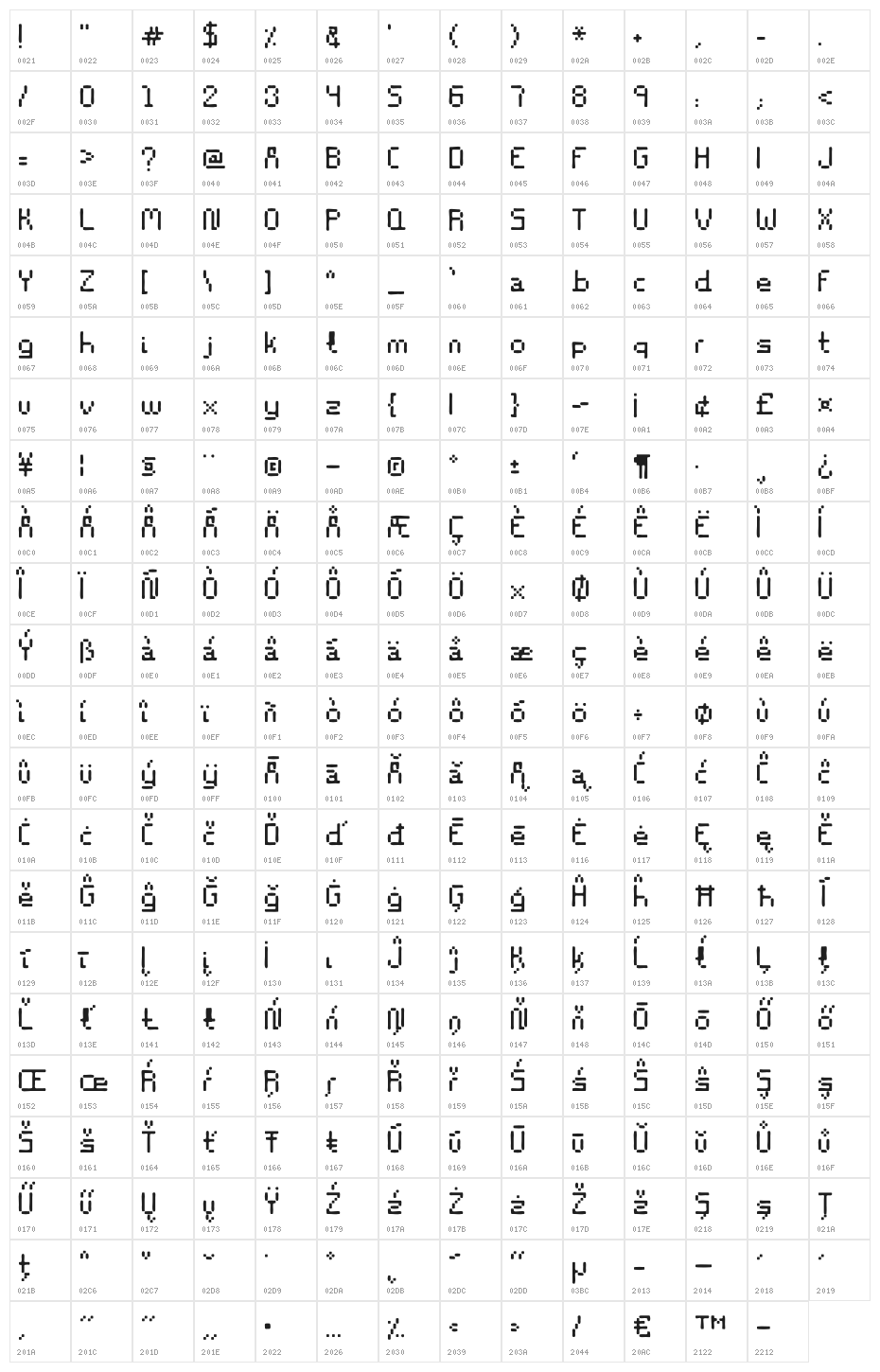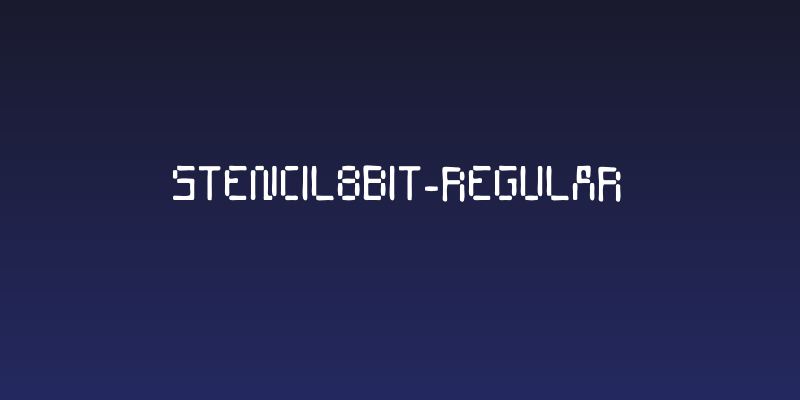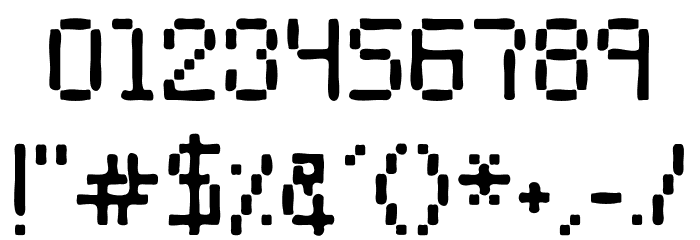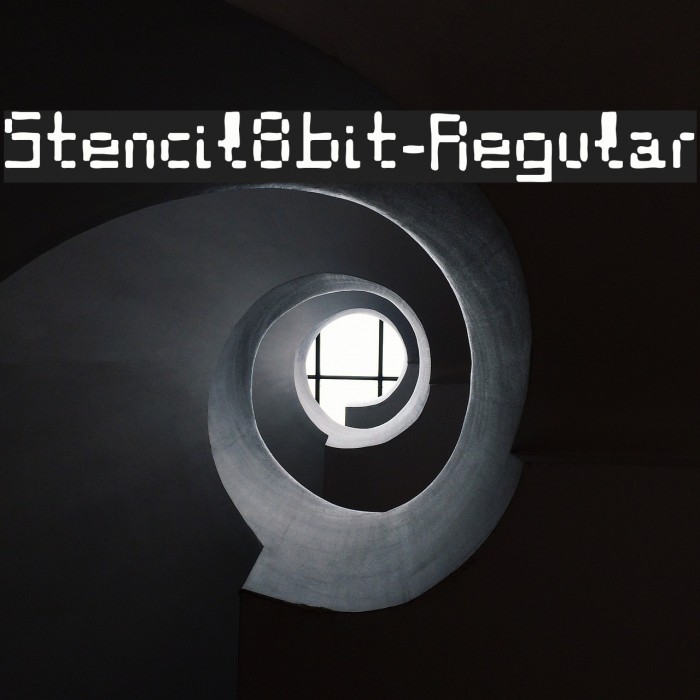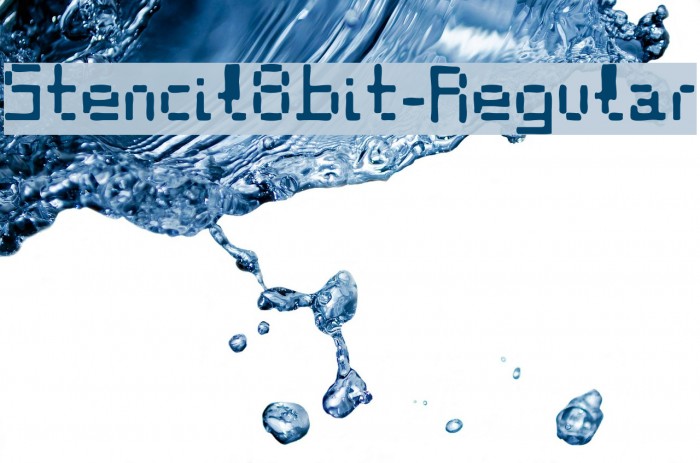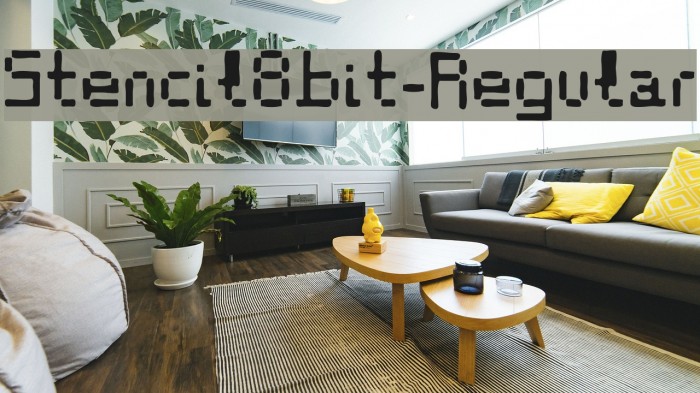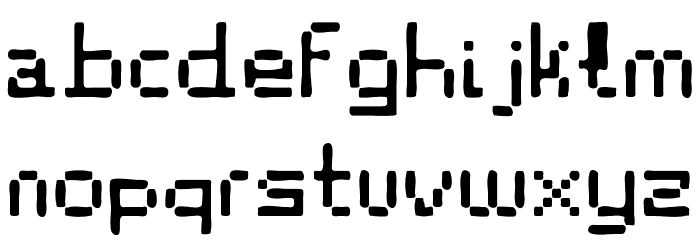
Stencil8bit-Regular Font
✎ Pixel
| Catégories | Pixel |
| Style général | Modern, Retro |
| Cas d'utilisation | Headlines, Logos, Digital Art |
| Projets proposés | Ideal for video game graphics, tech-themed posters, digital art, and branding that requires a modern, retro touch. |